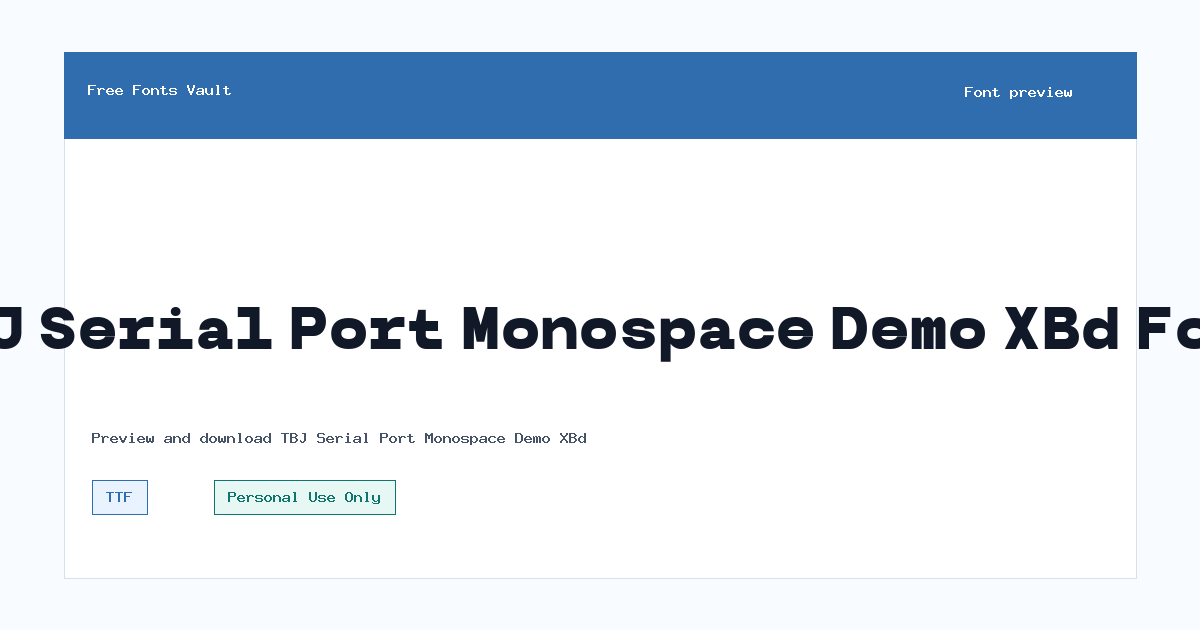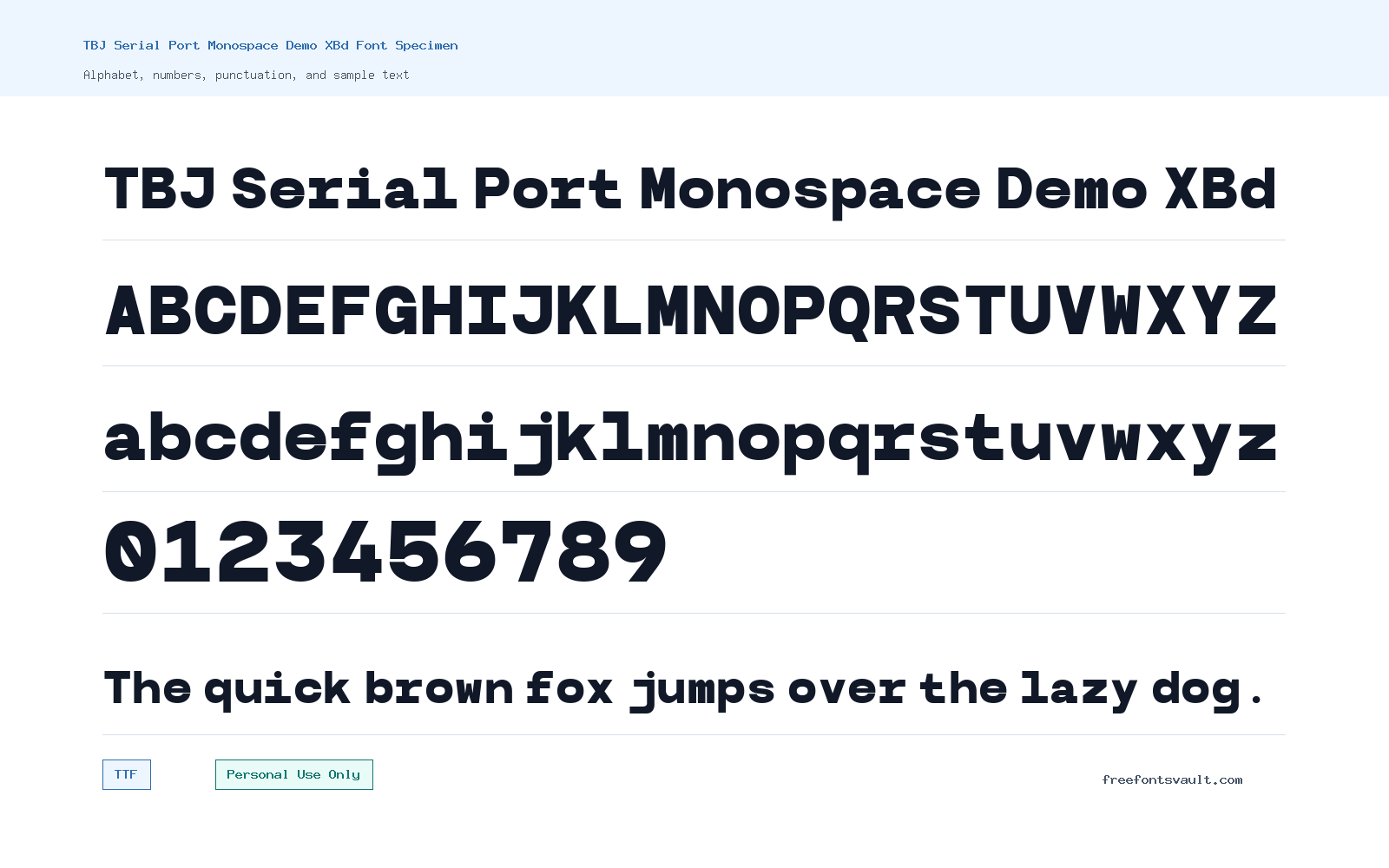
TBJ Serial Port Monospace Demo XBd
TBJ Serial Port Monospace Demo XBd font preview showing the family name
TBJ Serial Port Monospace Demo XBd Font
TBJ Serial Port Monospace Demo XBd font specimen showing alphabet, numbers, and sample text
• Designer Arif Rijal
• Foundry Taboja Studio
TBJ Serial Port Monospace Demo XBd is a personal-use font from Arif Rijal and Taboja Studio. Its name points to a monospace style with a technical mood, making it worth trying for short display text, interface-inspired layouts, posters, and experimental logo drafts.
About TBJ Serial Port Monospace Demo XBd
TBJ Serial Port Monospace Demo XBd is best approached as a display-minded monospace font rather than a general reading typeface. Because the family name uses “Serial Port” and “Monospace,” it naturally fits projects that need a coded, terminal-like, engineered, or digital tone. Use the preview box to test the exact words you plan to design with, especially if your layout depends on tight spacing, all-caps text, numbers, punctuation, or short labels. Monospace fonts can feel precise and structured, but they can also become rigid in long paragraphs, so it is safer to judge this font with real headings, button labels, poster lines, and logo text before downloading.
For designers, this font can be useful in early concepts for tech posters, software mockups, gaming overlays, product labels, badges, social graphics, and wordmark experiments. Try it at larger sizes first, where the spacing and letter shapes can carry more personality. If you are testing it for logo work, compare uppercase, lowercase, numerals, and symbols separately; a monospace design can make a mark feel balanced, but some brand names may need custom spacing. For web mockups, pair it with a clean sans serif for body copy so the monospace font can stay focused on headings, navigation accents, code-like snippets, or short callouts. Avoid using it as the only font in a content-heavy page unless the preview shows strong readability at small sizes.
• Monospace family name suited to structured, technical, code-inspired, and interface-style design tests.
• Useful for short display text, headings, poster lines, badges, and logo concept exploration.
• Works best when tested with real project wording, numbers, punctuation, and spacing-sensitive layouts.
• Tech-themed posters and digital graphics
• Logo drafts and wordmark experiments
• Software, dashboard, or interface mockups
• Gaming overlays, stream graphics, and cyber-style titles
• Badges, labels, short headlines, and social media artwork
What kind of projects is this font good for?
It is a good candidate for short, structured display text such as tech posters, interface mockups, badges, gaming graphics, and logo concept drafts.
Is this a good font for long paragraphs?
It is better to test it first for headings and short text. Monospace fonts can be harder to read in long body copy, especially at small sizes.
Who designed TBJ Serial Port Monospace Demo XBd?
The font is credited to Arif Rijal, with Taboja Studio listed as the foundry.